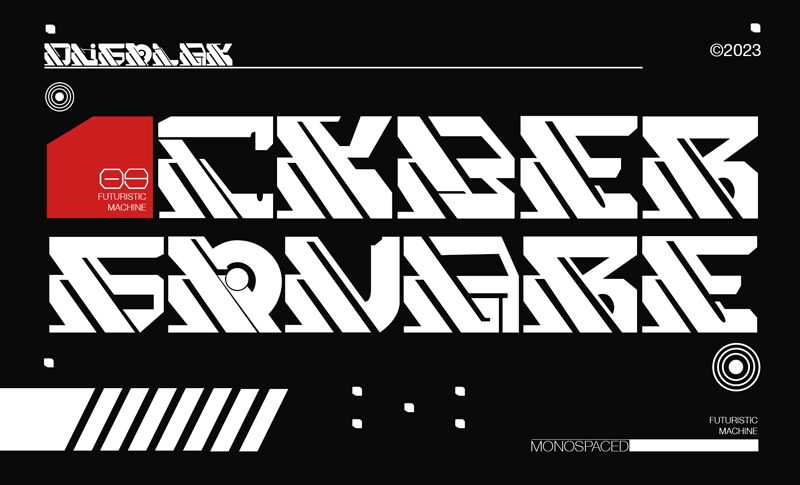
Cyber Square, designed by Mofr24, is a bold, futuristic display font that exudes a sense of technological innovation and progress. Its expanded, sleek letterforms evoke a captivating vision of the digital age, seamlessly blending modern aesthetics with a touch of retro-futuristic charm. This typographic marvel effortlessly commands attention, making it an ideal choice for eye-catching logotypes, dynamic display typography, and immersive media presentations.
Cyber Square's versatility extends beyond its visually striking appearance. Its bold, expansive character shapes lend themselves beautifully to a diverse range of applications, from branding and packaging to motion graphics and digital art. Whether you're crafting a cutting-edge tech startup's identity or elevating the visual impact of a sci-fi themed project, Cyber Square's unwavering presence is sure to leave a lasting impression on your audience.
Cyber Square
Mohamad Farhan Ramadhan